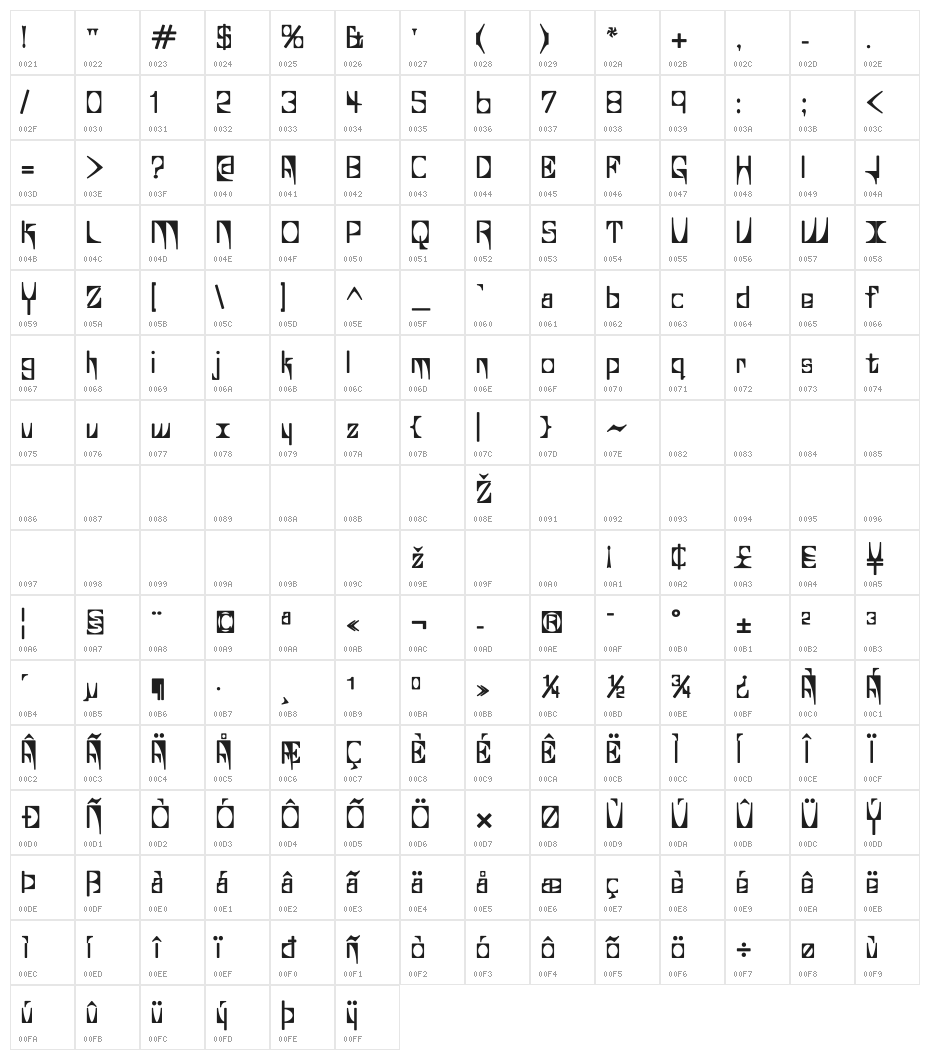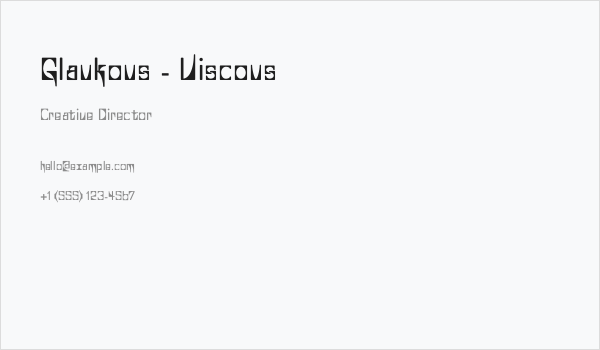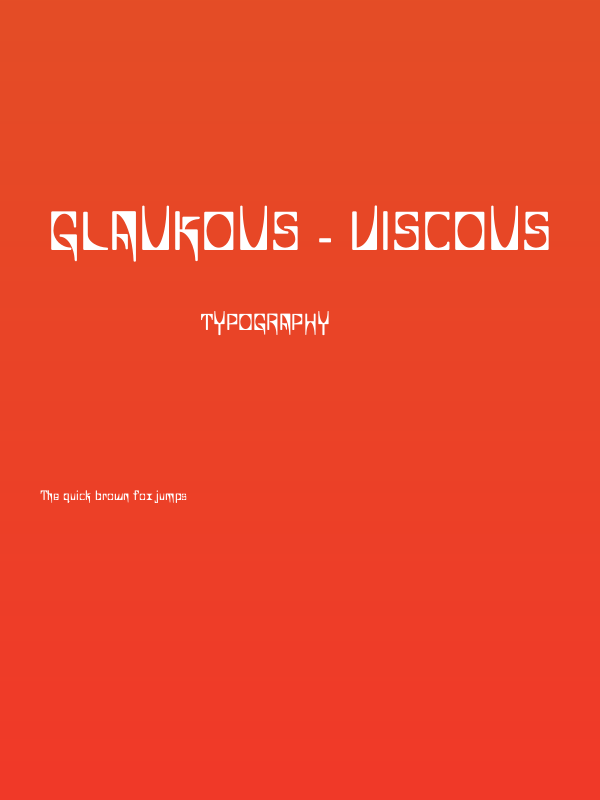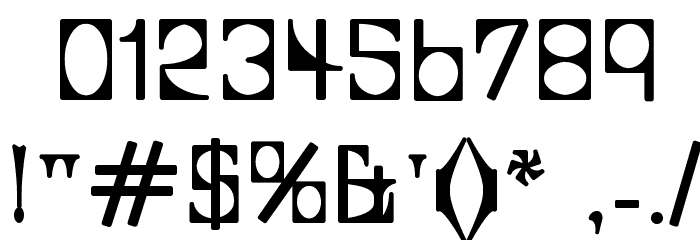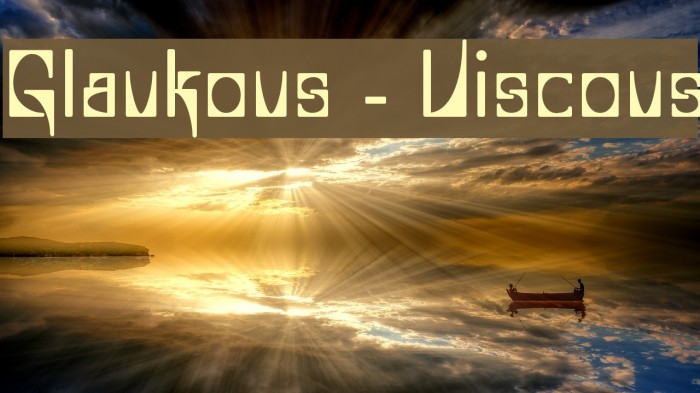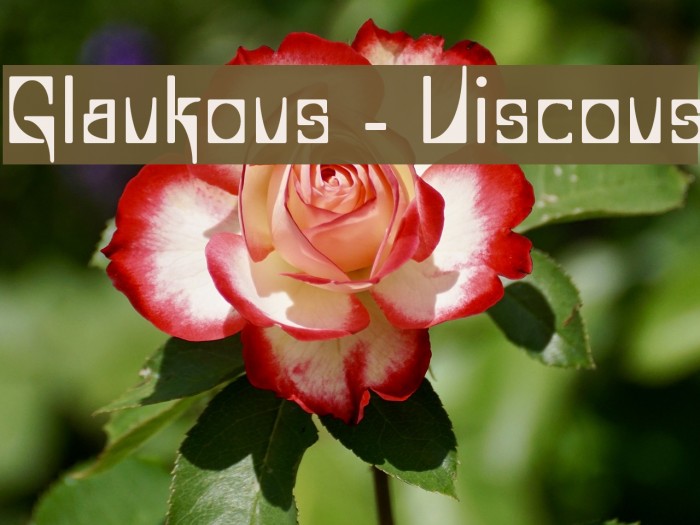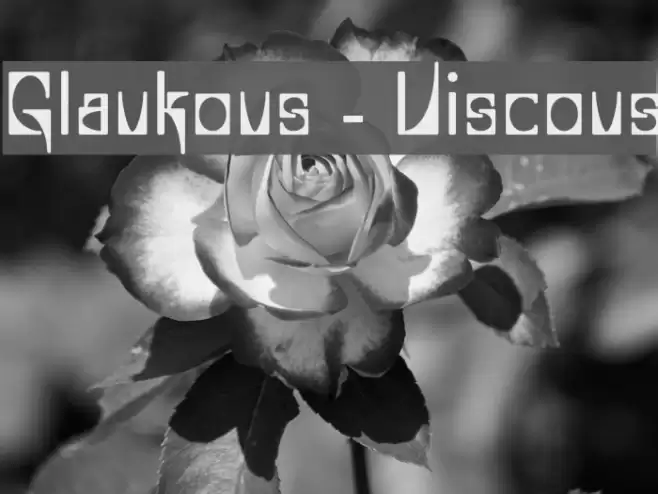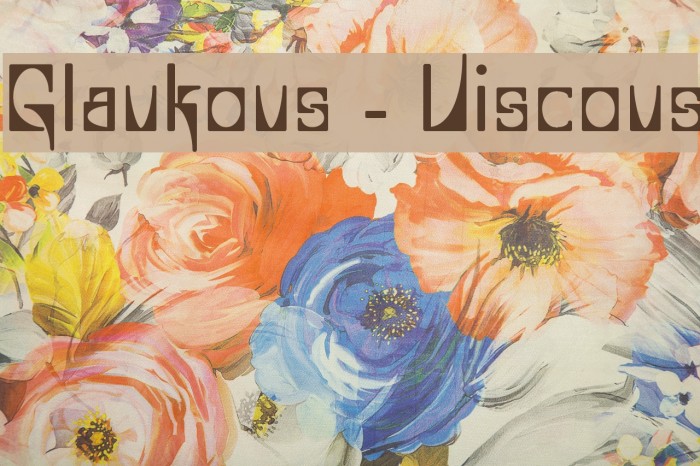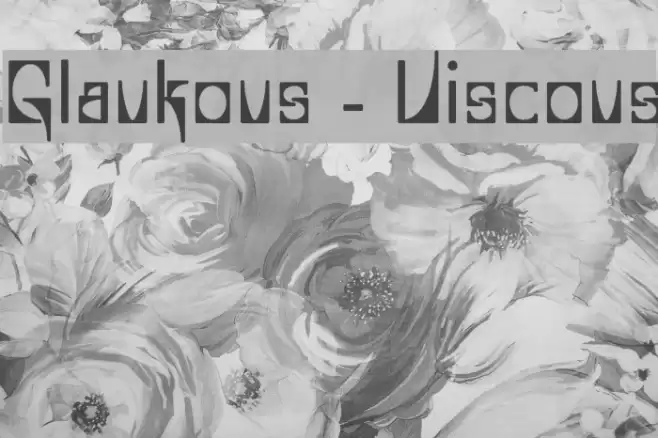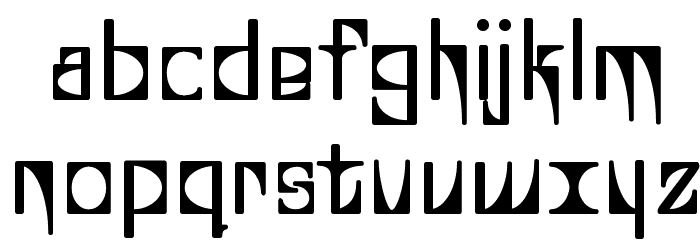
Glaukous - Viscous Font
Glaukous - Viscous Description
This font features a unique and artistic design with a blend of sharp angles and smooth curves. The uppercase letters exhibit a bold and striking appearance, with some characters incorporating extended strokes and geometric shapes. The lowercase letters maintain a consistent style, offering a more compact and cohesive look. Numbers and special characters follow the same design principles, ensuring uniformity across the font. The overall aesthetic is modern and slightly futuristic, making it suitable for creative and eye-catching designs.
| Proposed Projects | Ideal for branding, posters, album covers, and any project requiring a distinctive and modern typeface. |